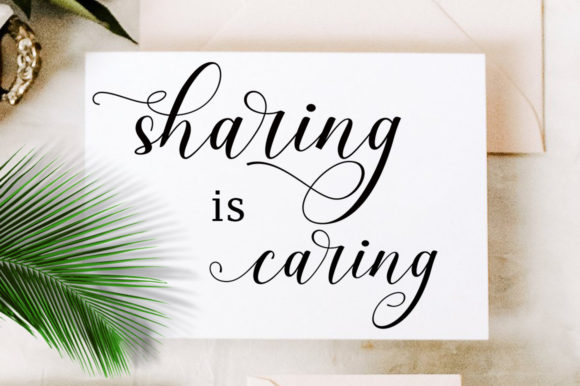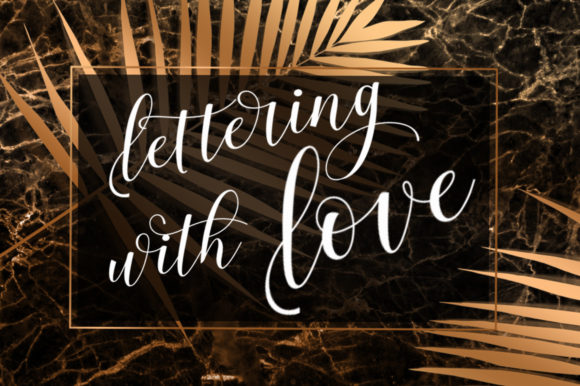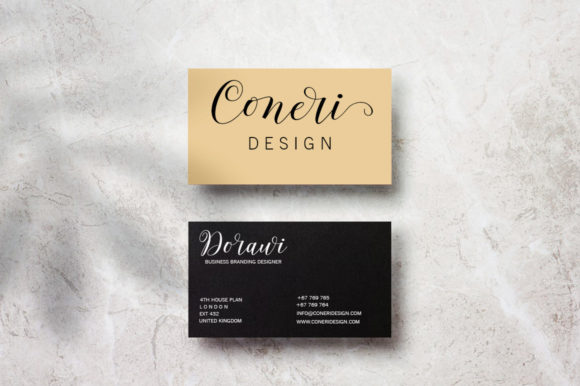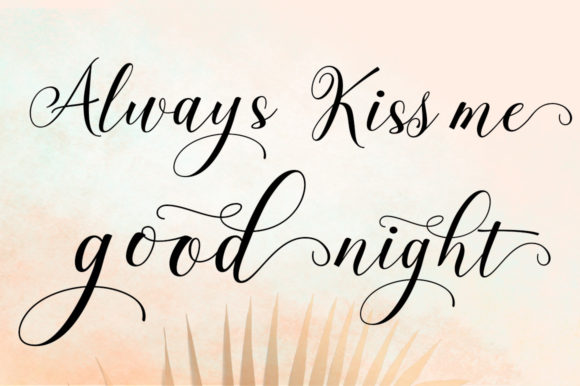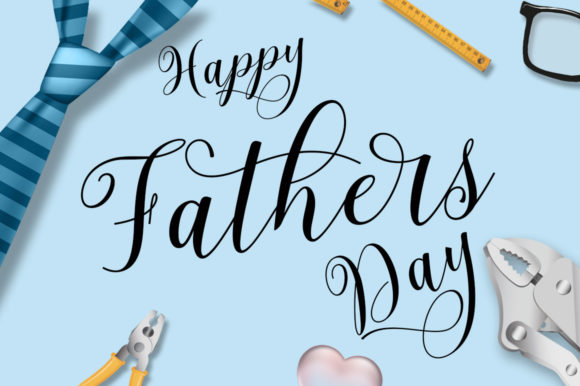
Introducing Daughter Font: Elevate Your Designs with Elegance and Sophistication
In the world of typography, a font can make or break a design. For designers and crafters seeking to add a touch of class and sophistication to their work, Daughter Font is an exceptional choice. This beautiful and refined script font is perfect for a wide range of applications, from logos and branding to invitations, stationery, wedding designs, and social media posts.
A Classy, Elegant, and Modern Look
Daughter Font boasts a classy, elegant, and modern look that instantly elevates any design. Its refined lines and curves create a sense of luxury and sophistication, making it ideal for designs that require a high-end feel. Whether you’re working on a logo, branding materials, or wedding invitations, Daughter Font is sure to impress.
One of the standout features of Daughter Font is its versatility. This font can be used for a wide range of applications, including:
- Logos and branding: Create a lasting impression with a custom logo that exudes elegance and sophistication.
- Invitations and stationery: Add a touch of class to your invitations, greeting cards, and stationery.
- Wedding designs: Make your wedding designs truly unforgettable with Daughter Font’s beautiful and refined script.
- Social media posts: Elevate your social media posts with a font that’s sure to grab attention.
Daughter Font is PUA (Private Use Area) encoded, which means you can access all of the glyphs and swashes with ease. This feature makes it simple to customize your designs and add unique touches that set your work apart.
Why Choose Daughter Font?
With so many fonts available, why choose Daughter Font? Here are just a few reasons:
- Unique and elegant design: Daughter Font’s refined script is sure to add a touch of sophistication to any design.
- Versatility: This font can be used for a wide range of applications, making it a great addition to any designer’s toolkit.
- Easy to use: With PUA encoding, accessing glyphs and swashes is simple and straightforward.
- High-quality: Daughter Font is a high-quality font that’s designed to deliver exceptional results.
Tips for Using Daughter Font
To get the most out of Daughter Font, here are a few tips:
- Use it sparingly: Daughter Font’s elegance and sophistication can be overwhelming if overused. Use it sparingly to create a lasting impression.
- Experiment with glyphs and swashes: With PUA encoding, you can access a wide range of glyphs and swashes. Experiment with different combinations to add unique touches to your designs.
- Pair it with other fonts: Daughter Font pairs well with a range of other fonts. Experiment with different pairings to find the perfect combination for your design.
Daughter Font is a beautiful and refined script font that’s perfect for designers and crafters seeking to add a touch of elegance and sophistication to their work. With its classy, elegant, and modern look, versatility, and PUA encoding, this font is sure to become a staple in any designer’s toolkit. Whether you’re working on logos, branding, invitations, or social media posts, Daughter Font is an exceptional choice.